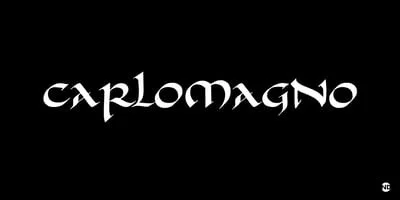
Carlomagno ND Font is perfect for medieval fantasy book covers, historical documentary titles, royal ceremony invitations, castle tour branding, Renaissance festival posters, medieval restaurant designs, knight-themed gaming graphics, historical museum displays, royal wedding announcements, and epic fantasy movie titles that require majestic imperial authority and medieval grandeur.
This font is exciting because it embodies the magnificent power and imperial majesty of Charlemagne's Holy Roman Empire with bold, commanding letterforms that reflect the strength, nobility, and divine authority of medieval kingship. Carlomagno ND Font features regal proportions and ornate details that capture the essence of medieval manuscripts and royal proclamations, creating an instantly recognizable atmosphere of historical grandeur and imperial dignity.
Carlomagno ND Font family includes Regular, Bold, Light, Royal, Imperial, Ornate, Gothic, and Decorative versions, plus medieval symbols, crown ornaments, heraldic elements, and royal flourishes that enhance the authentic imperial aesthetic and provide comprehensive design solutions for historical and fantasy-themed projects.
For majestic historical and fantasy design projects, Carlomagno ND Font delivers unparalleled royal elegance and imperial authority. The font's commanding letterforms and regal character make it perfect for historical institutions, fantasy entertainment, and luxury brands seeking to communicate power, tradition, and noble heritage. Its magnificent presence commands respect while maintaining excellent readability across epic storytelling and prestigious branding applications. The character set includes medieval punctuation and royal symbols that enhance historical authenticity. Professional designers appreciate its ability to convey both imperial power and cultural sophistication while maintaining versatility across fantasy gaming, historical publications, and luxury brand communications, making it essential for projects that require the commanding presence and timeless authority of medieval royalty and imperial grandeur.